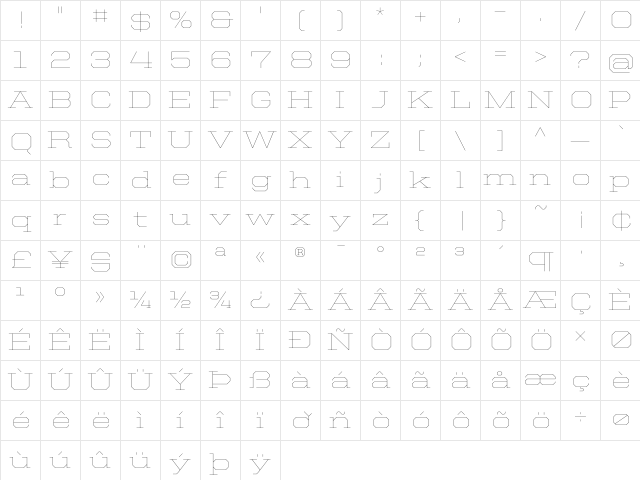
United Serif Ext Thin Free Font
United Serif Ext Thin
Style: Thin
Foundry: House Industries
Designer: Tal Leming
Design Context for United Serif Ext
United Serif Ext carries the refined structure of traditional serif typography, with bracketed terminals and considered proportions that communicate credibility and craft. Its slender proportions lend an understated elegance to any composition.